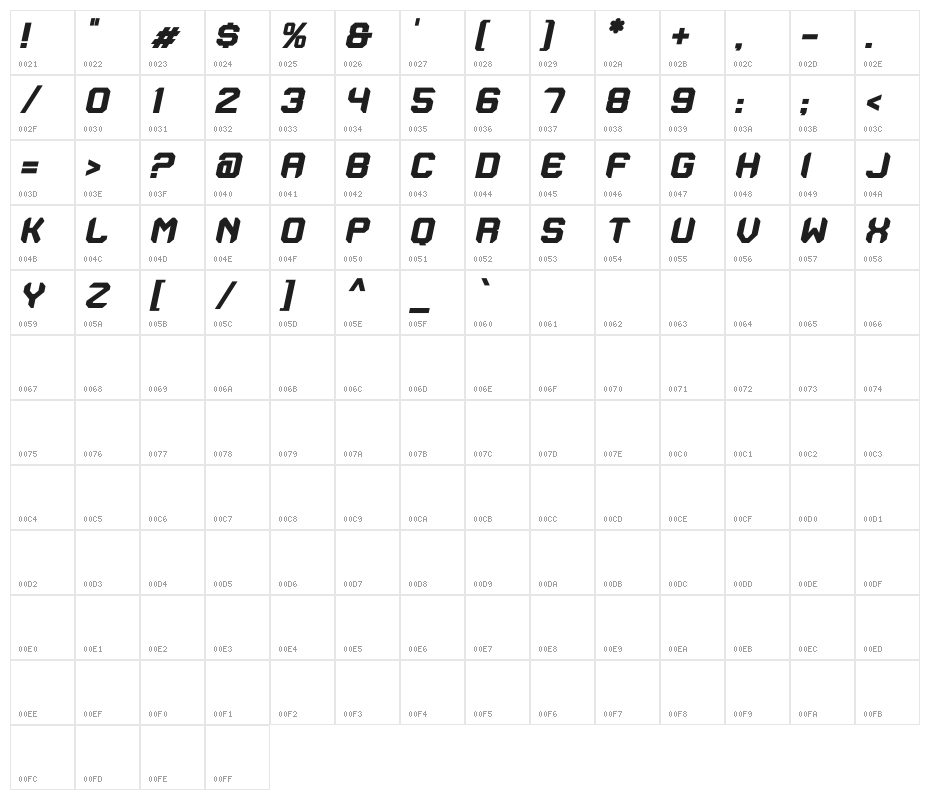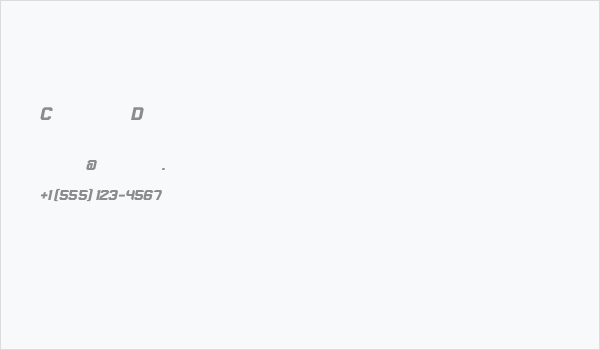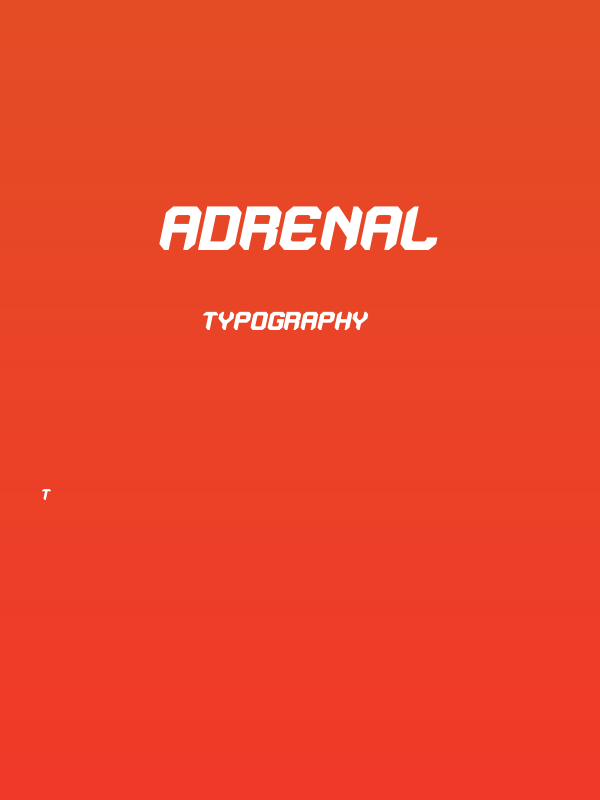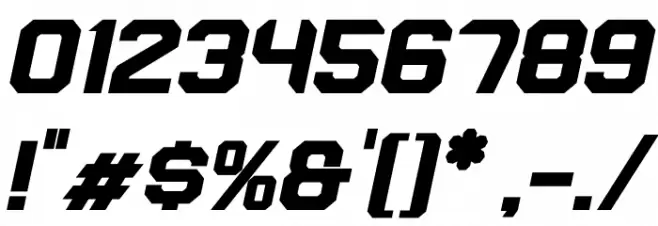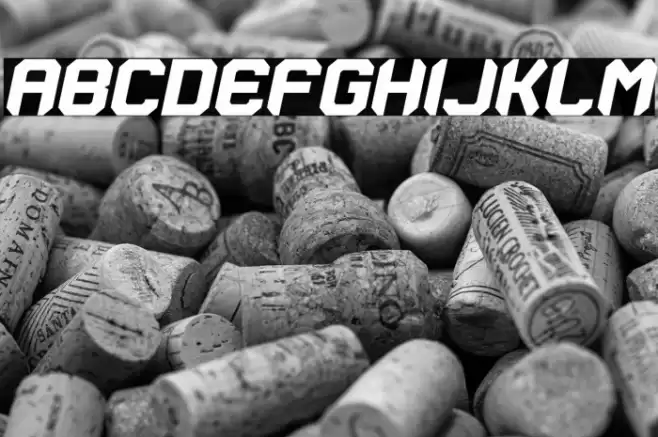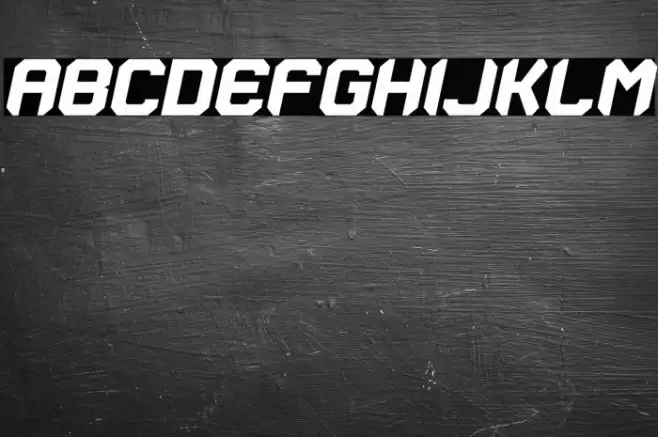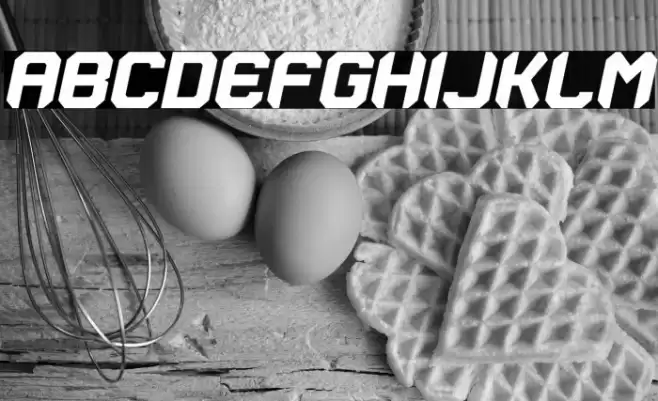
adrenal Font
adrenal Description
This font features a bold and dynamic style with a futuristic and sporty appearance. The characters are designed with sharp angles and a slightly italicized slant, giving them a sense of motion and energy. The uppercase letters are uniform in height, while the numbers and special characters maintain the same boldness and angular design. The font's geometric shapes and thick strokes make it highly legible and impactful, suitable for attention-grabbing designs.
| Overall Style | Futuristic |
| Proposed Projects | Ideal for sports branding, futuristic designs, video game titles, and dynamic posters. |